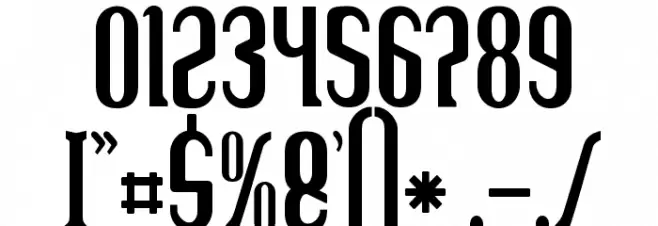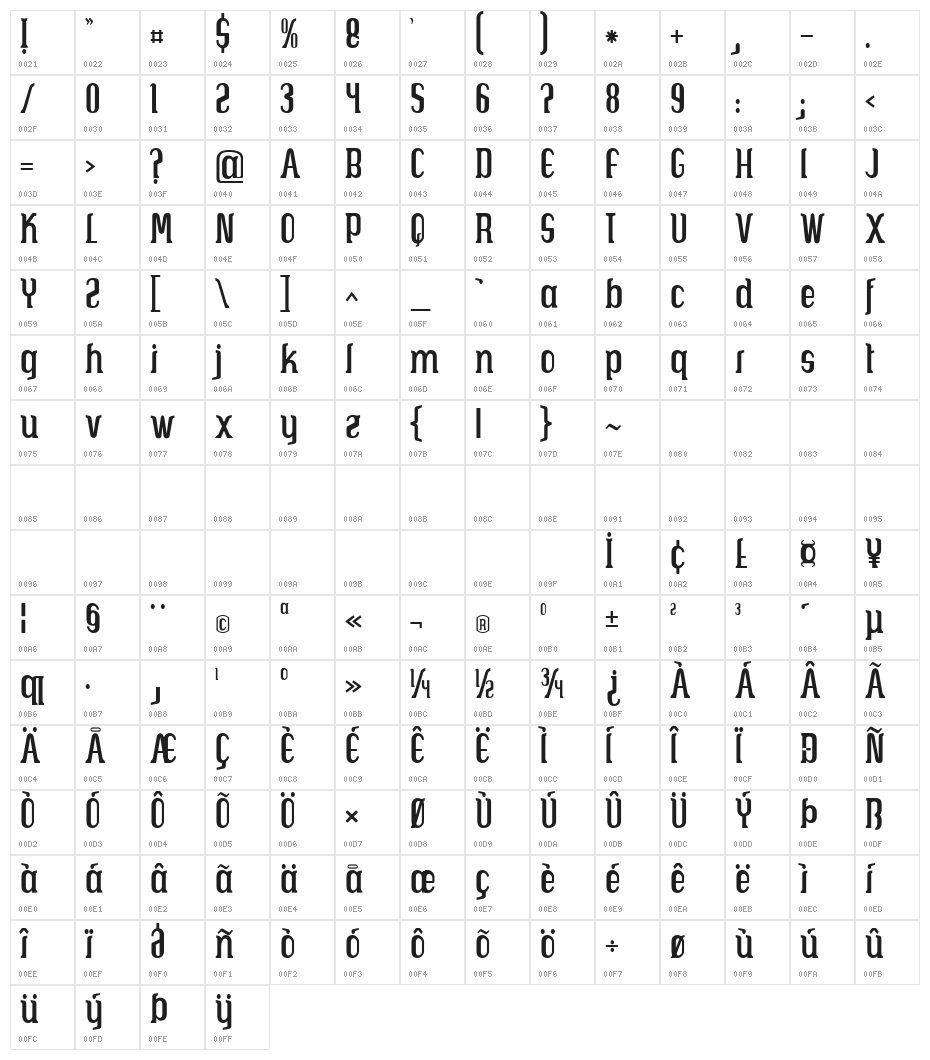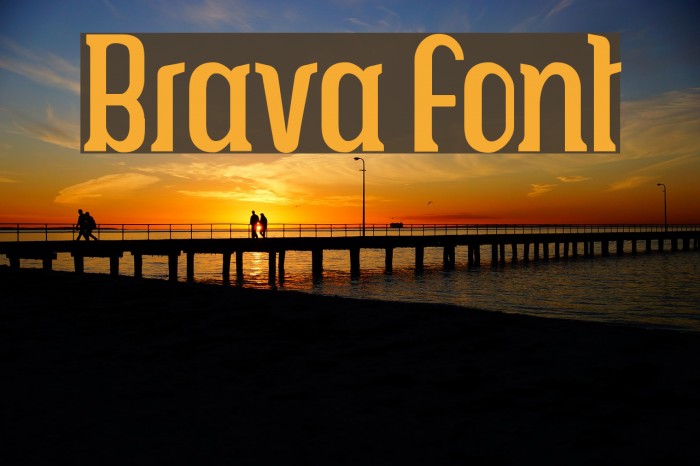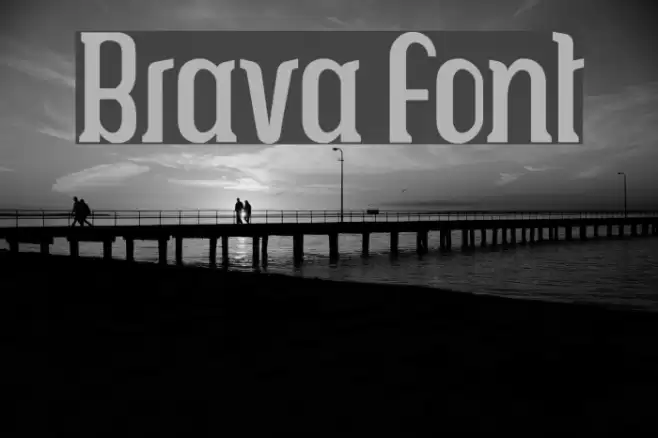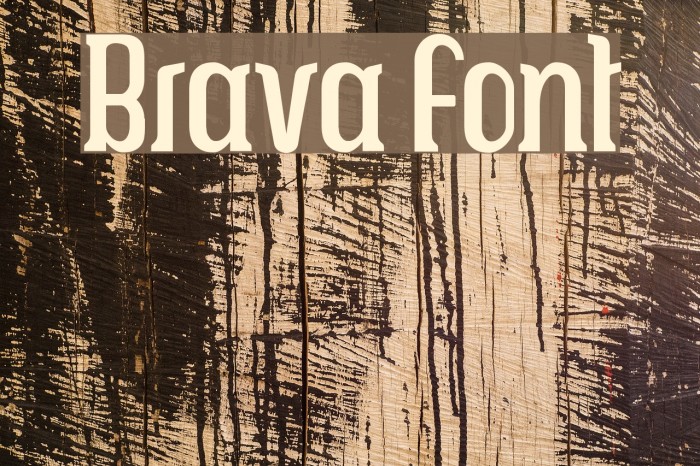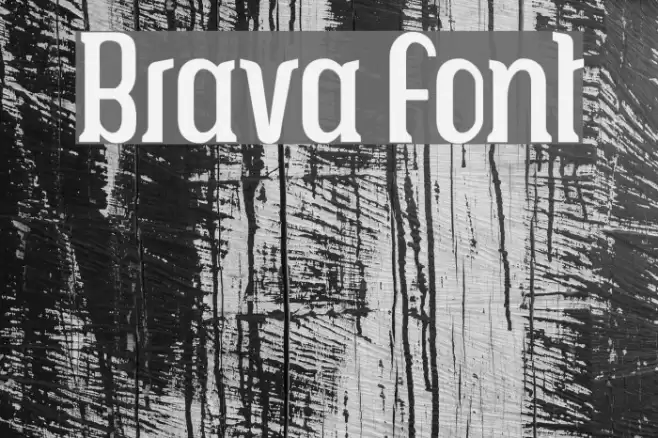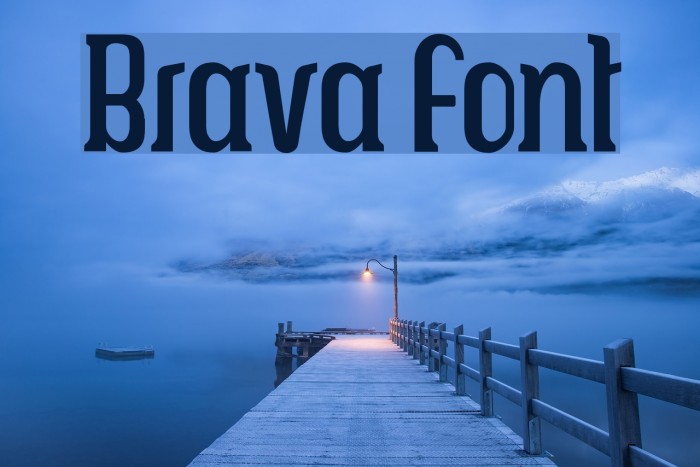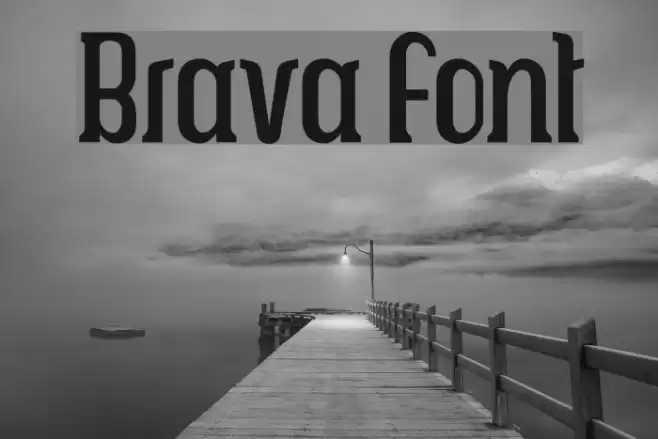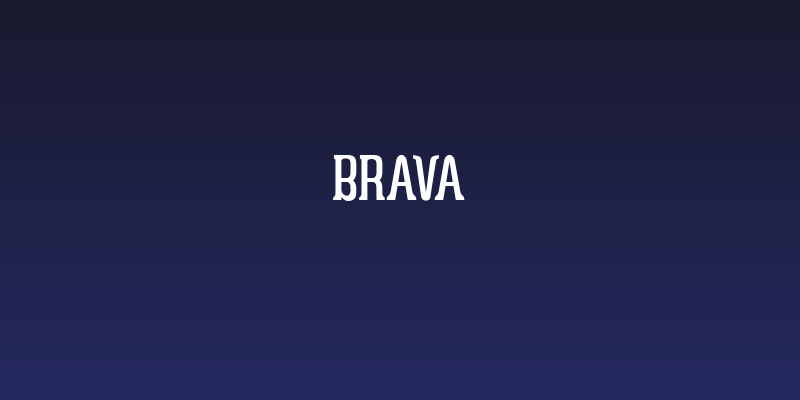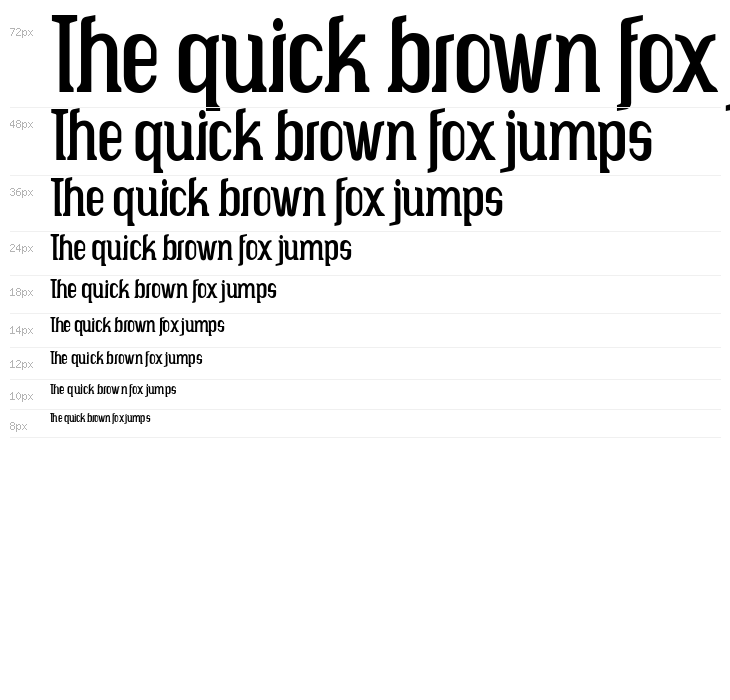
Brava Font
Brava Description
This font features a bold and distinctive style with a modern twist. The uppercase letters are tall and slightly condensed, giving a strong vertical emphasis. The lowercase letters maintain a consistent height, complementing the uppercase with a more rounded and softer appearance. The numbers are clear and legible, with unique characteristics that make them stand out. Special characters are creatively designed, adding a playful yet sophisticated touch. The overall design is clean and versatile, making it suitable for a variety of applications. Its unique blend of boldness and elegance makes it ideal for projects that require a strong visual impact.
| Proposed Projects | Ideal for branding, advertising, posters, and headlines where a strong visual impact is needed. |